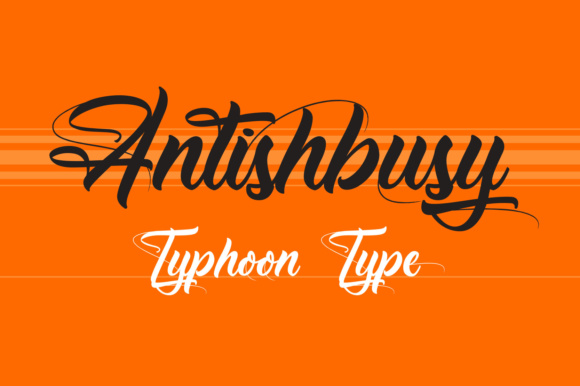
Antishbusy Font
Antishbusy is a strong script with a lot of character. It’s designer to leave an impression, making it a perfect font for small businesses.
It features letters with decorative lines, giving it a playful look.